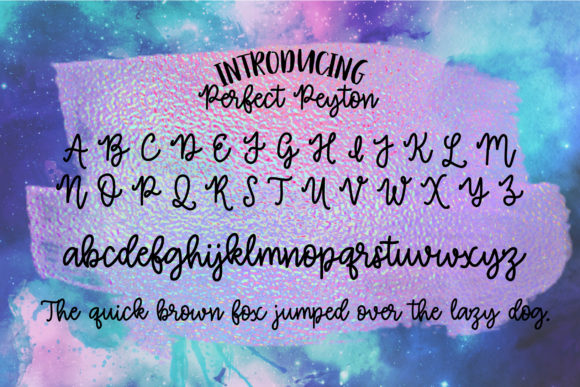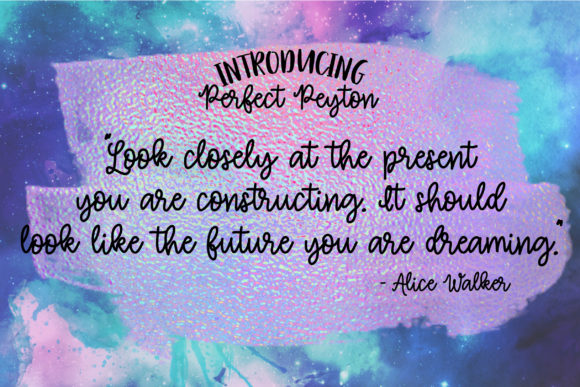
Introduction to Perfect Peyton Font
Perfect Peyton is a fun and cool handwritten font with a unique flavor.
It will add a unique spice to any design project .
Key Features of Perfect Peyton Font